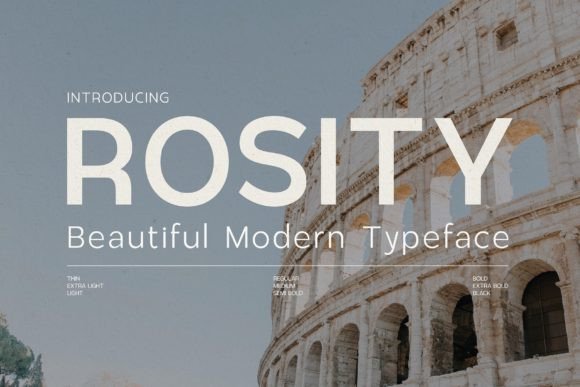
Introducing Rosity, the ultimate font for unleashing your creativity and taking your design projects to new heights. With its captivating modern style and impeccable versatility, this sans serif masterpiece is a must-have for anyone looking to create stunning visuals that leave a lasting impression.
Crafted by the brilliant minds at HipFonts, Rosity is the epitome of elegance and sophistication. Its sleek lines and graceful curves effortlessly command attention, making it the go-to choice for designers seeking to captivate their audience. Whether you're designing a breathtaking logo, eye-catching marketing materials, or a jaw-dropping website, Rosity will elevate your work to the next level.
But Rosity isn't just visually stunning - it's also incredibly adaptable. With its wide range of weights, this font allows you to effortlessly navigate between various design applications. From bold headlines that demand attention to subtle details that add a touch of finesse, Rosity empowers you to create designs that truly stand out.
Just imagine the impact your T-shirt designs could have with Rosity. Transforming ordinary garments into wearable works of art, this font will ensure that your creations turn heads wherever they go. From casual and cool to edgy and bold, the possibilities are endless when you have Rosity at your fingertips.
But don't just take our word for it - experience the transformative power of Rosity yourself. Download this modern masterpiece today and witness the magic of elegant typography unfold before your eyes. Let your creativity soar as you explore the countless possibilities this font has to offer.
Rosity is more than just a font; it's a gateway to a world of artistic expression. It's time to unlock your true potential and make your designs unforgettable. Don't miss out on the opportunity to add Rosity to your font collection - it's a decision you won't regret.
So, what are you waiting for? Join the ranks of successful designers who have discovered the secret to captivating their audience with Rosity. Elevate your designs, leave a lasting impression, and make a statement with this timeless font. Download Rosity today and embark on a journey of creative excellence.